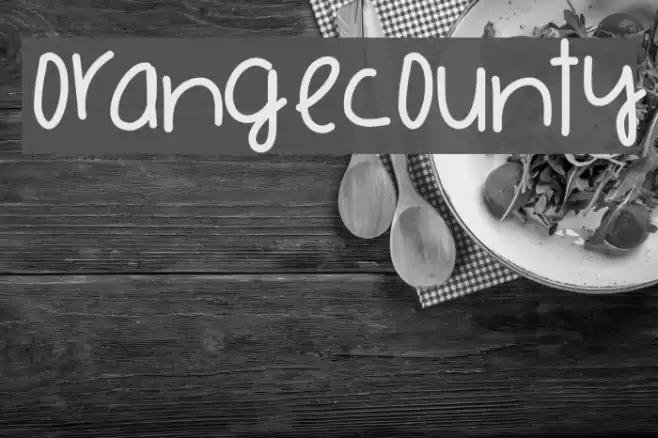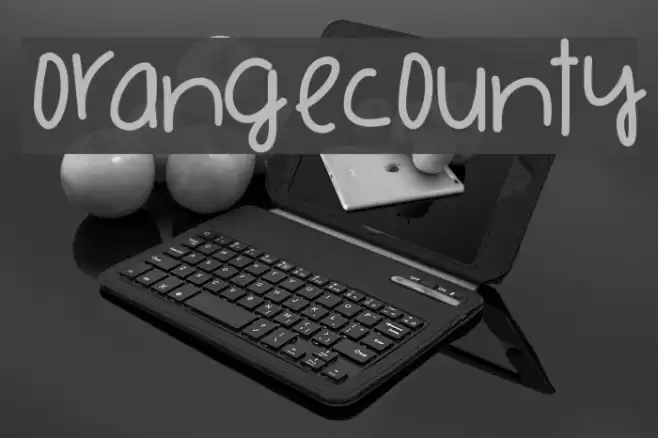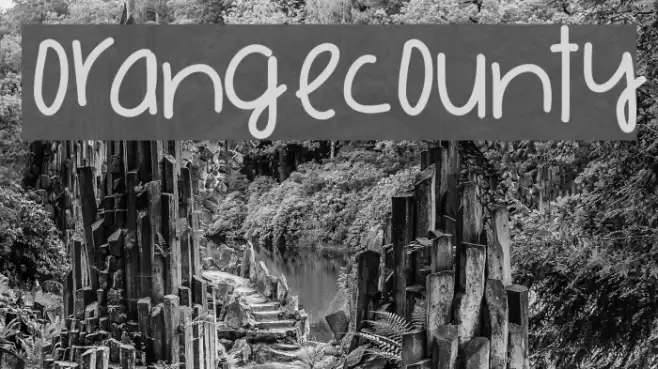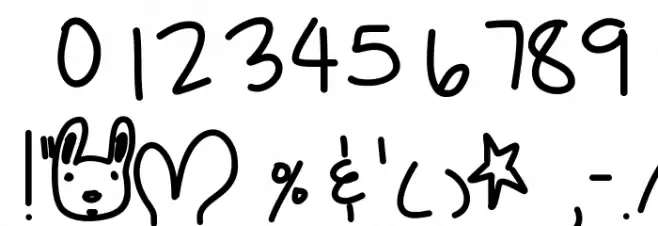
OrangeCounty Font
OrangeCounty Description
This playful and whimsical font features a handwritten style that exudes a casual and friendly vibe. The letters are slightly irregular, giving it an authentic, hand-drawn appearance. The strokes are consistent in thickness, contributing to a uniform look across all characters. The uppercase and lowercase letters maintain a cohesive style, while the numbers and special characters add a touch of creativity with their unique designs. This font is perfect for projects that require a personal touch, such as greeting cards, children's books, or playful branding.
- Proposed Projects: Ideal for greeting cards, children's books, playful branding, and casual invitations.
- Overall Style: Casual
- Use Case: Logos, Headlines, Informal Text